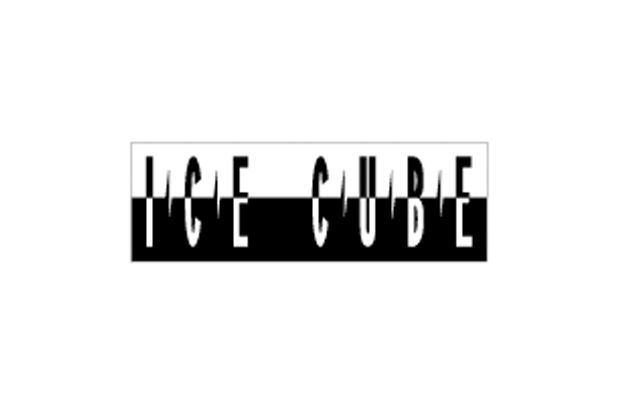
Here’s the image:
Whatever it is, it sure looks like someone used software to condense it more than the base font.
Steve-O is right. The actual typeface is ‘almost’ unidentifiable in this state. It’s so compressed that I wouldn’t be surprised if those shapes between the characters were diamonds at one point.
You can try horizontally stretching back into, what could be, considered it’s original form.
It probably looked like this at one point…
Could try Flamingo
…but it’s not quite there. There’s a bunch more that you can squish the crap out of like
Geometric 706 Std Black Condensed
…etc..